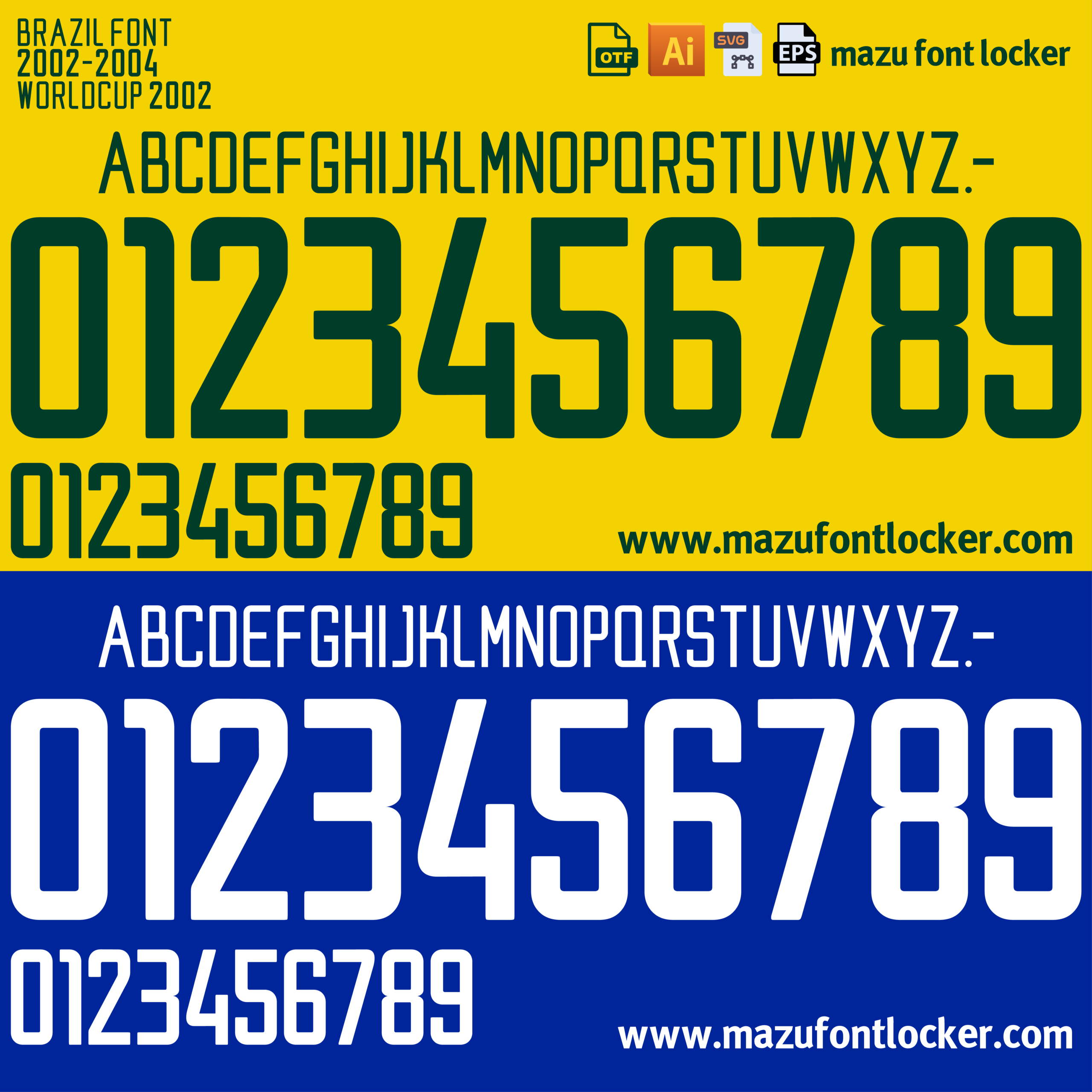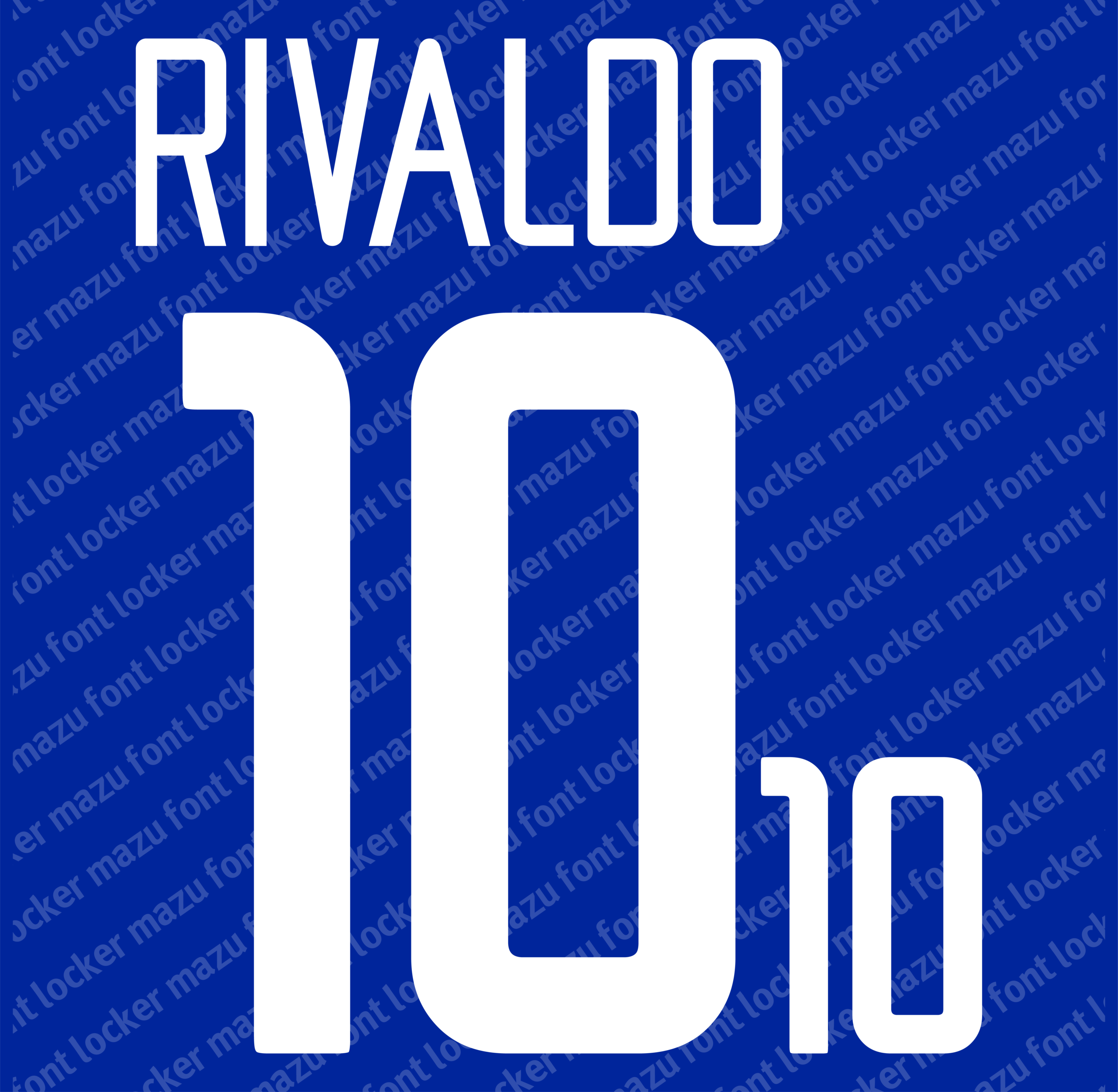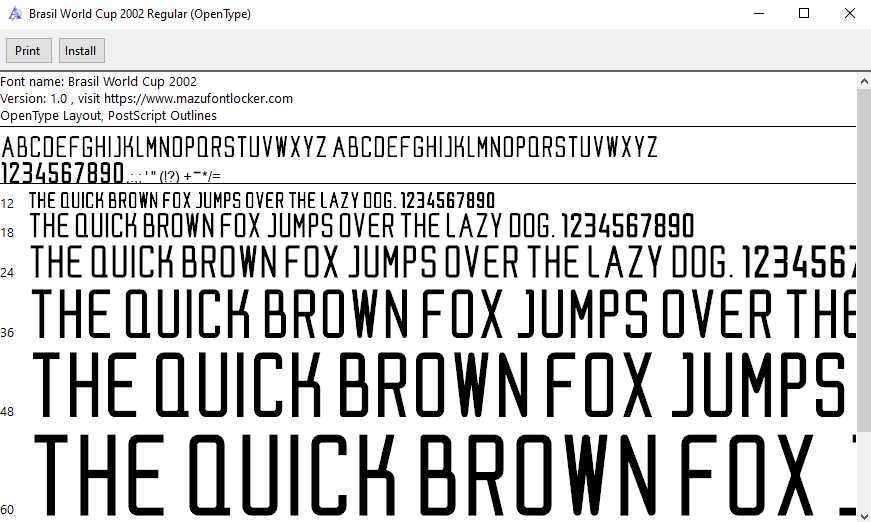
Brazil 2002 Font Vector
Brazil World Cup 2002 font, names and numbers, fully editable VECTOR file for customisation.
Complete design with the Brazil World Cup 2002 numbering and lettering for the World Cup 2002 Match .